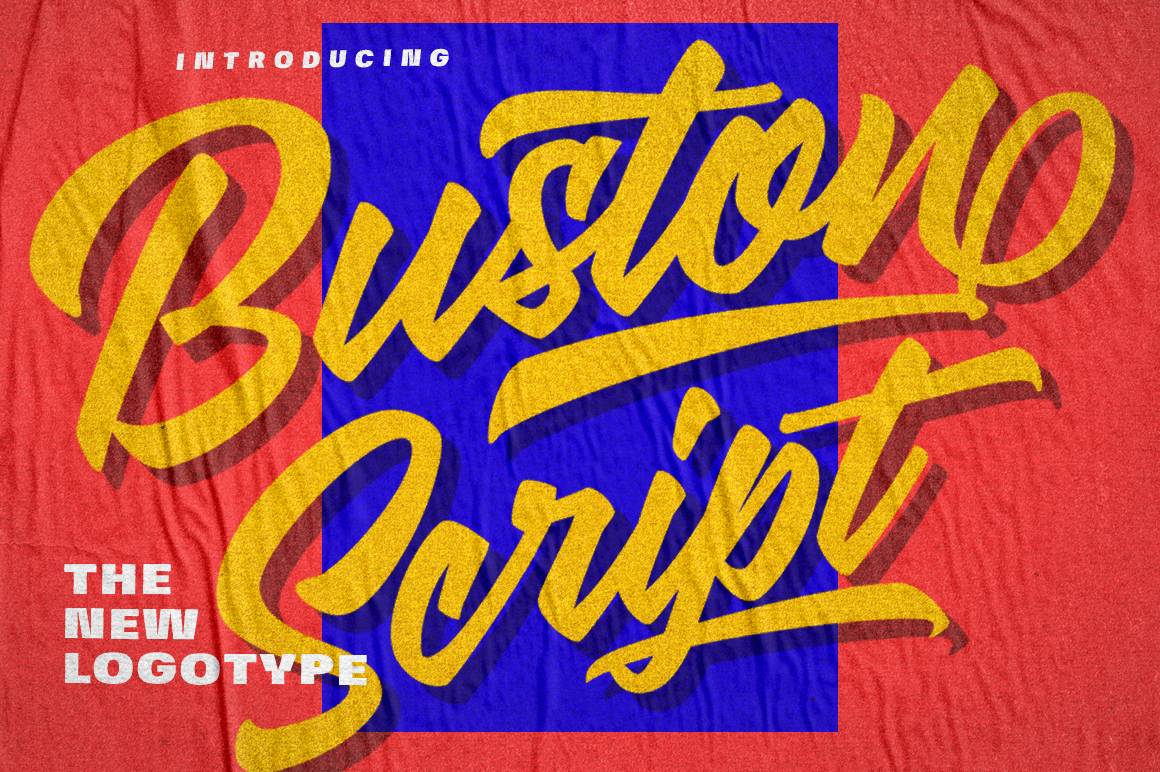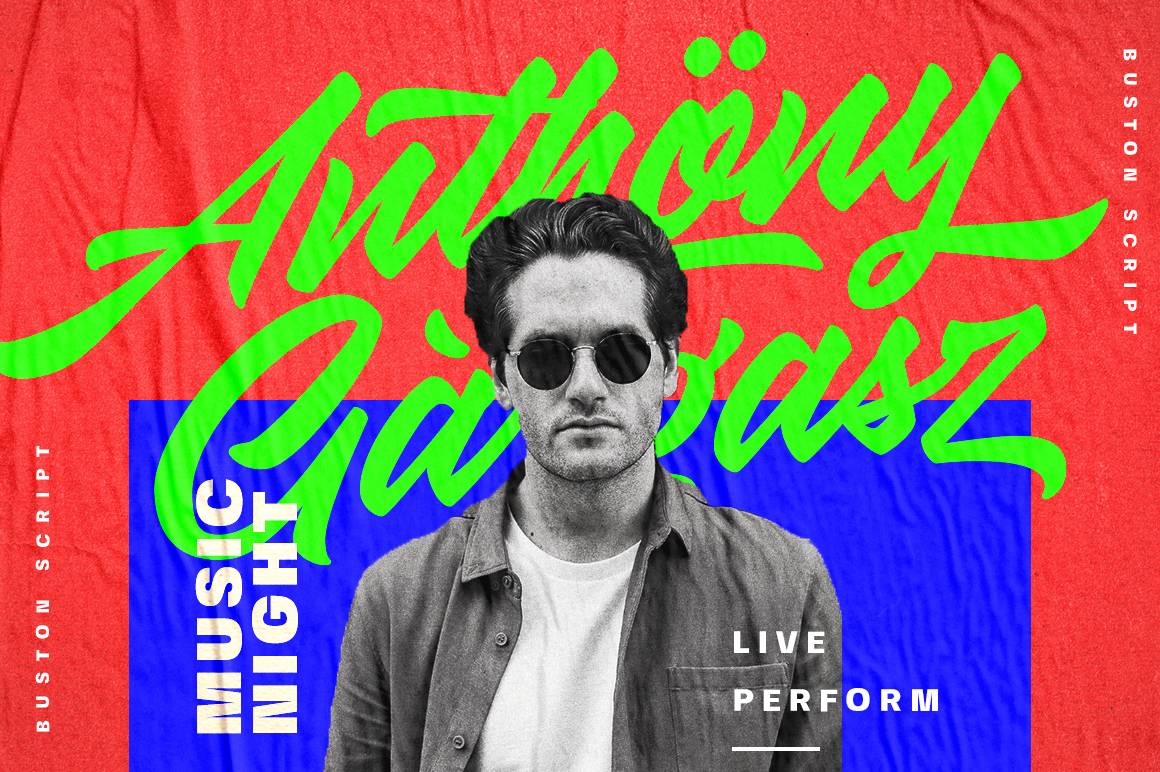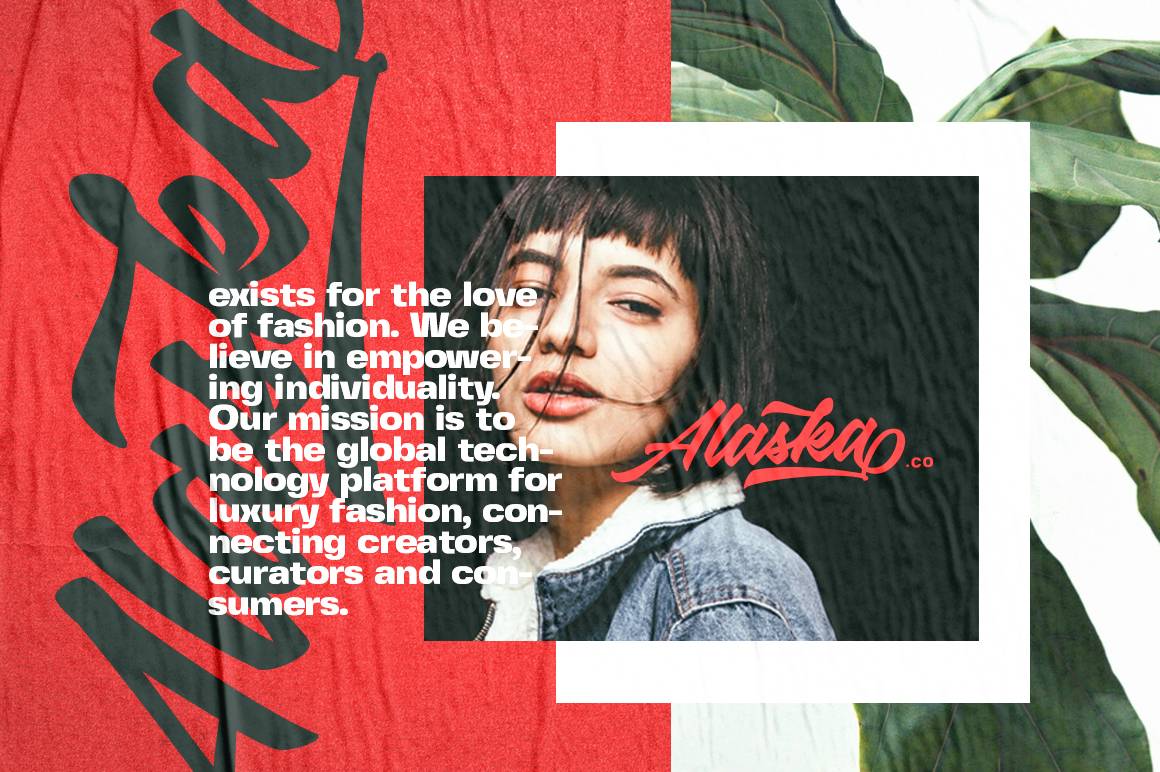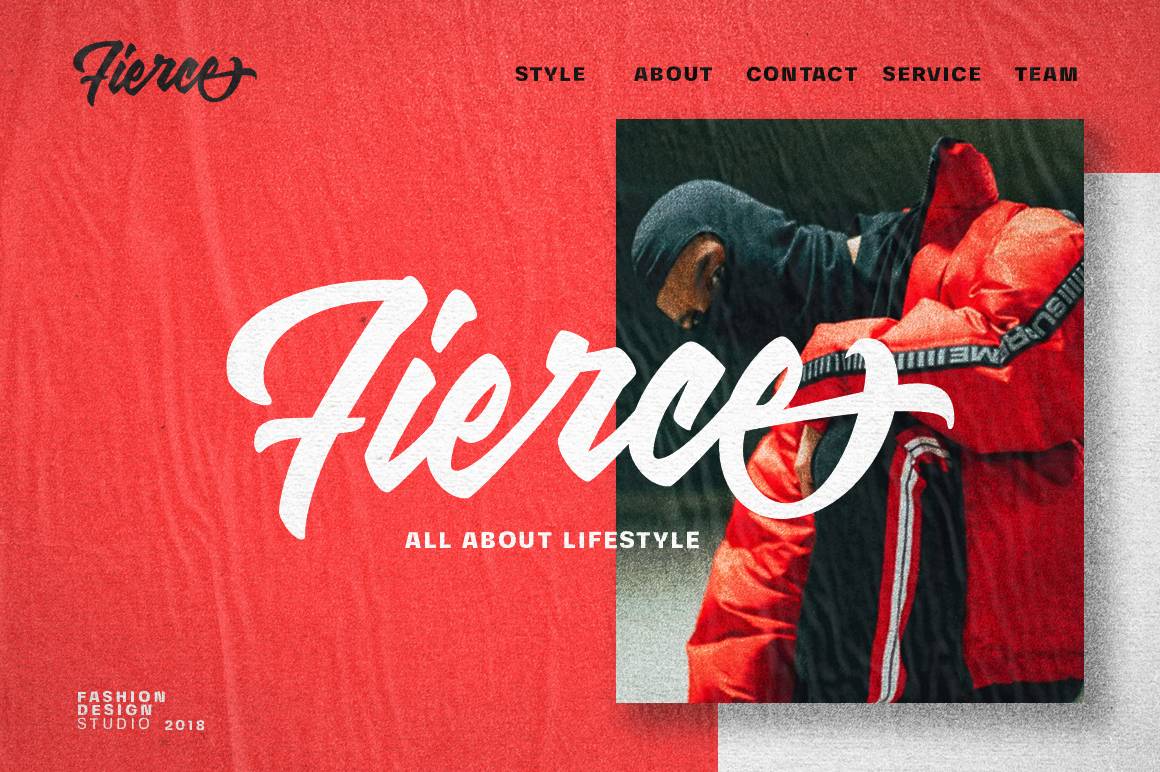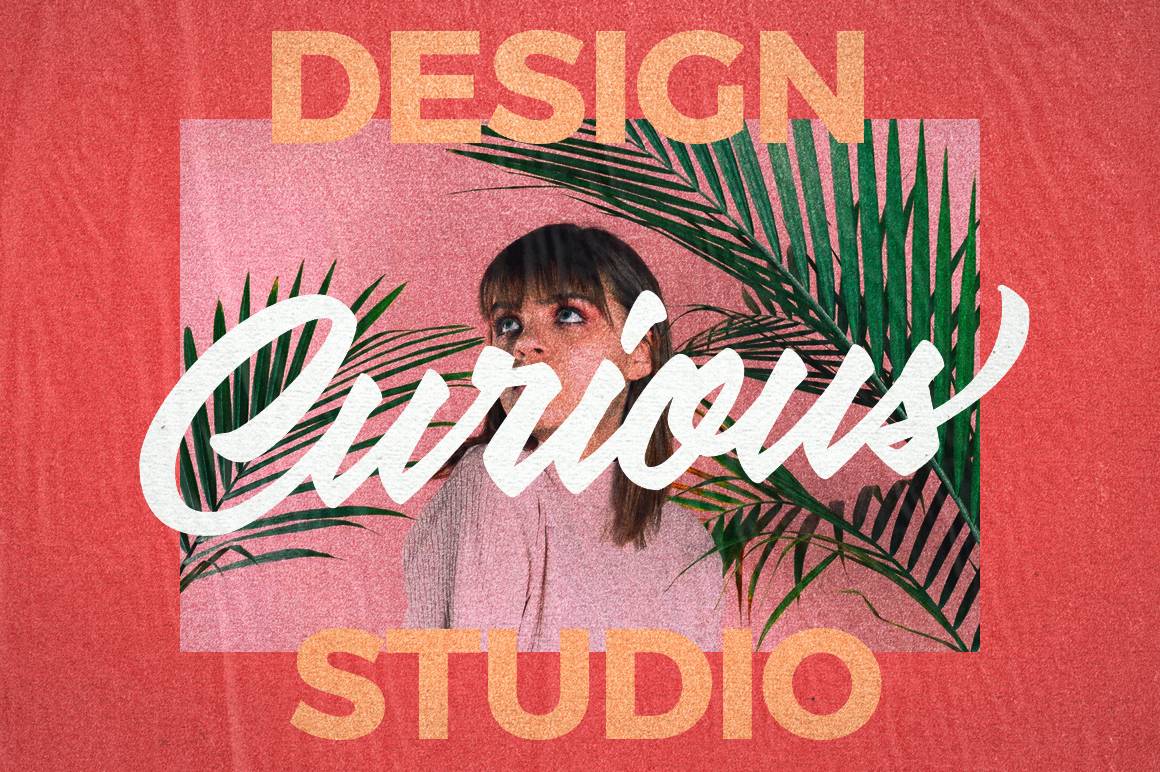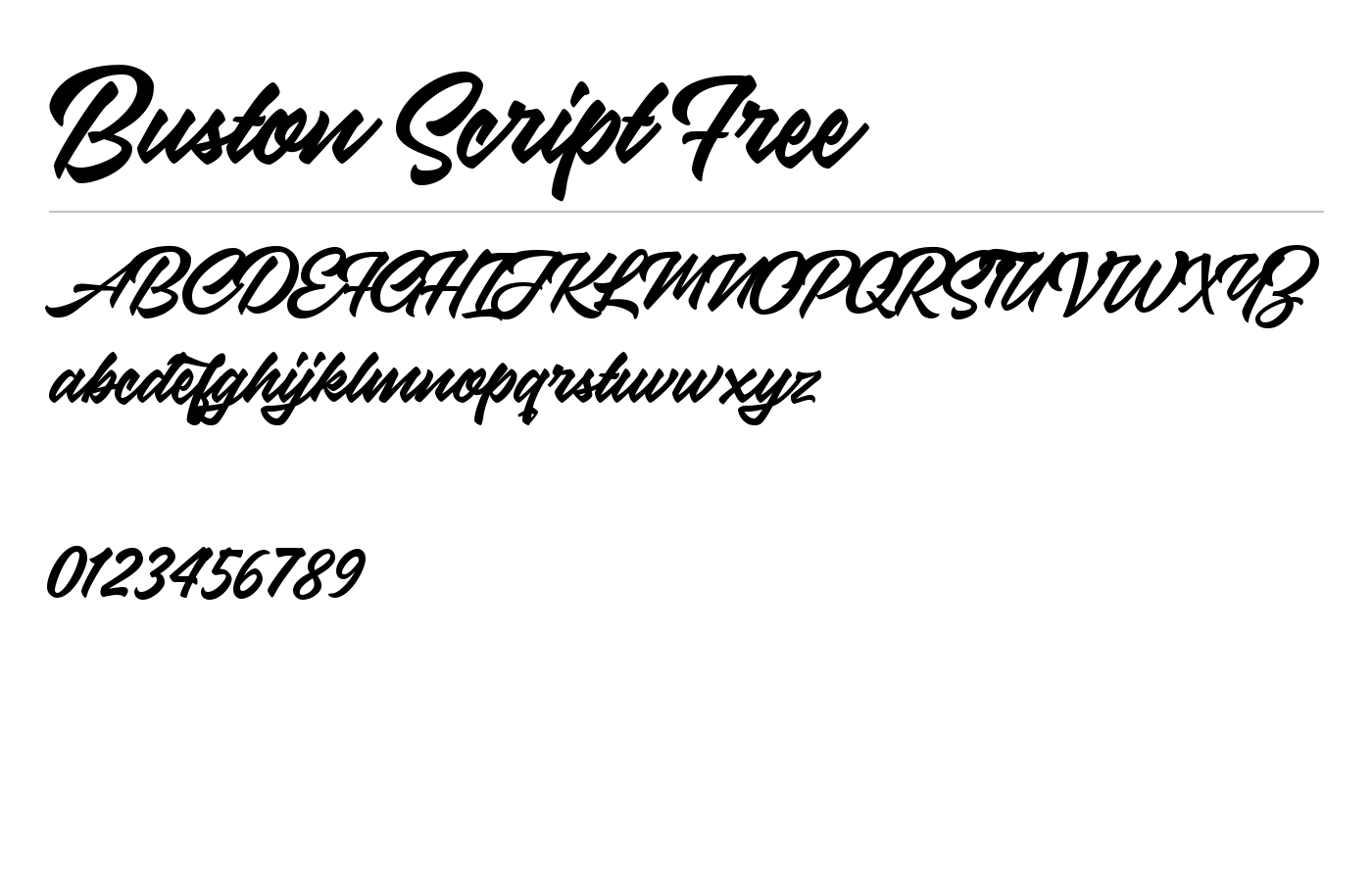
Buston Script is a bold, flowing script font with smooth, rounded strokes that give it a casual yet confident feel. Its connected letterforms and moderate contrast make it perfect for creating eye-catching headlines, branding, and invitations that want to convey a friendly and approachable personality. Ideal for creative projects seeking a modern, hand-lettered style with a natural, energetic flow.
Buston Script Font
About Buston Script Font